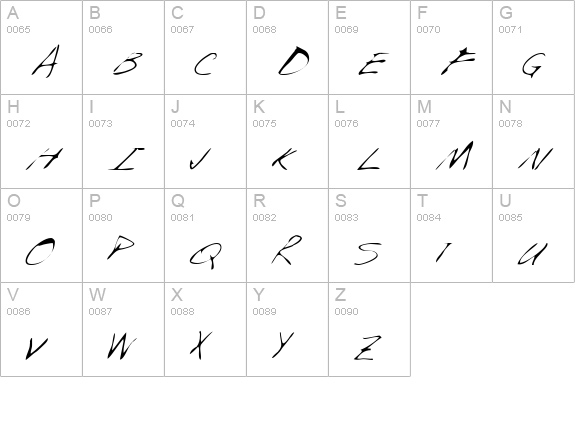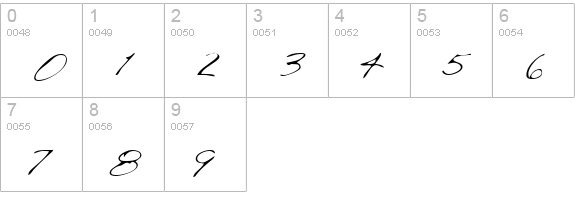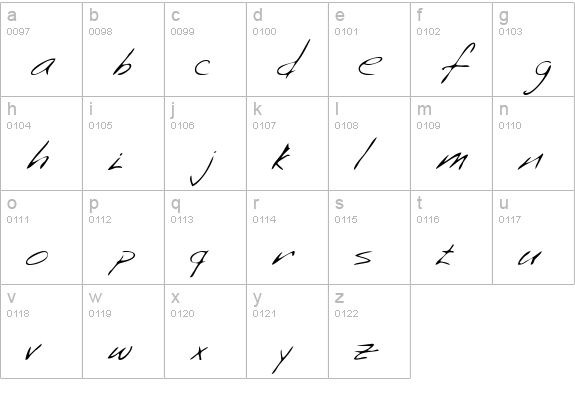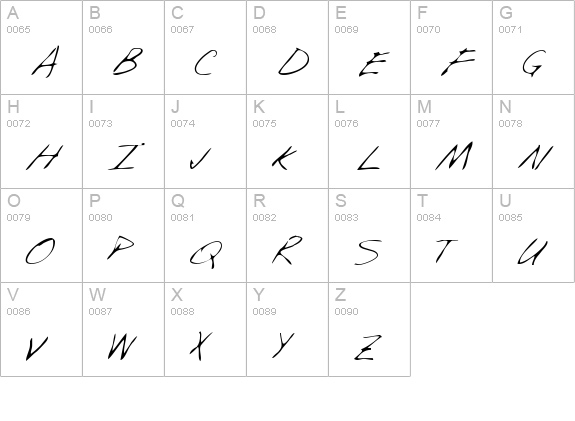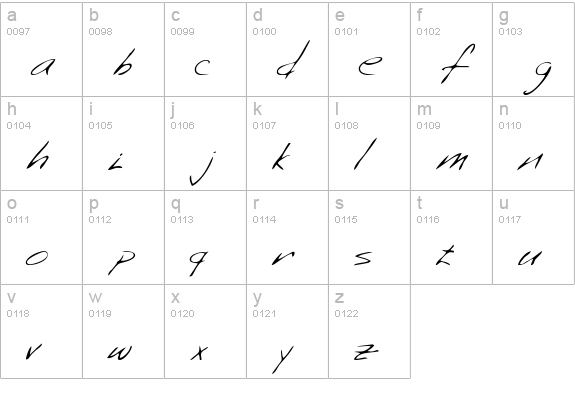
SaffronsHand Font Details
SaffronsHand is a beautifully crafted font that exudes elegance and sophistication. With its delicate curves and graceful strokes, this font captures the essence of handwritten calligraphy with a modern twist. It is the perfect choice for those seeking a font that adds a touch of charm and femininity to their designs. What sets SaffronsHand apart is not just its stunning aesthetics, but also the fact that it is available for free. Yes, you read that right – this magnificent font can be downloaded at no cost from FontsMarket.com. Whether you are a professional designer, a budding artist, or simply someone in need of a unique font for a personal project, SaffronsHand is here to cater to your creative needs without putting a dent in your budget. Imagine the possibilities with SaffronsHand. From wedding invitations and greeting cards to branding materials and social media posts, this font will elevate your designs to new heights. Its versatility allows it to effortlessly adapt to different styles and themes, making it a go-to choice for any occasion. The attention to detail in SaffronsHand is evident in every letter, as each stroke is carefully crafted to achieve a harmonious and balanced look. Its legibility ensures that your message is conveyed with clarity and impact, while its artistic flair adds a touch of personality and flair. Don't miss out on the opportunity to enhance your designs with SaffronsHand. Download this remarkable font for free at FontsMarket.com and unleash your creativity. Whether you are a professional designer or a passionate hobbyist, SaffronsHand is sure to become your new favorite tool in the world of typography.